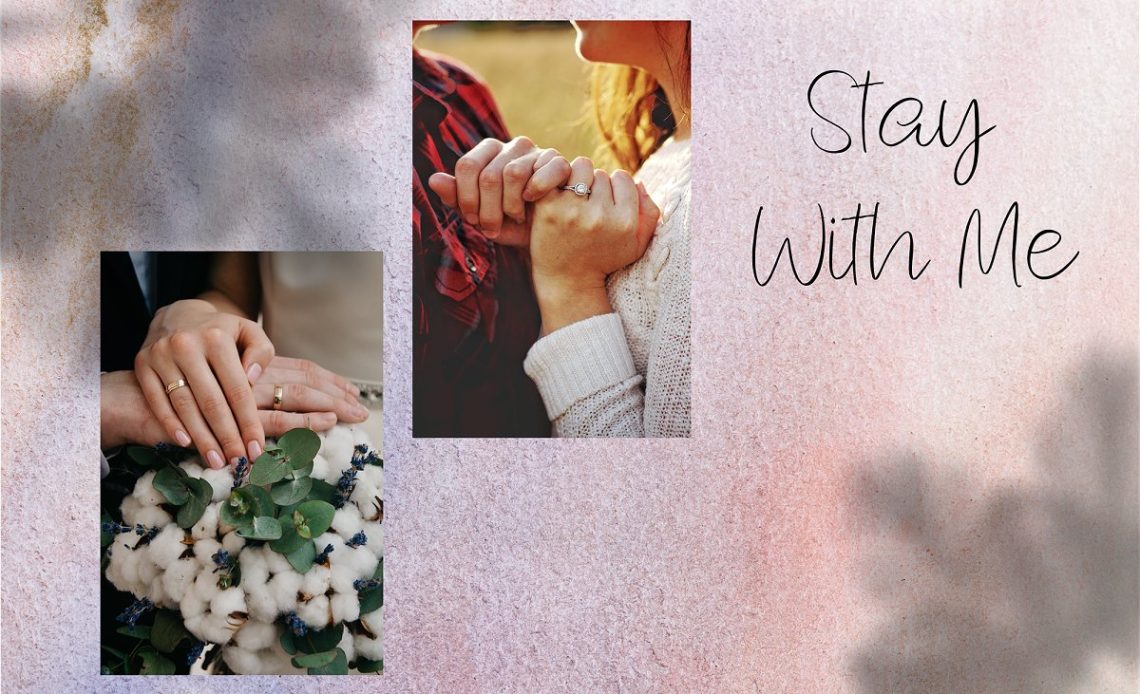
Looking for the perfect font for your script writing? Look no further than Blodeyn Handwriting Font! Created by the talented Randi Ilhamsyah, this stunning script font is designed to elevate your typography to new heights.
Blodeyn Handwriting Font is perfect for a wide range of uses, including personal logos, letterheads, branding, magazines, name cards, wedding invitations, and more. Whether you're creating beautiful embroidery, laser cut designs, gold foil accents, or traditional printing on t-shirts, Blodeyn Handwriting Font is the perfect choice.
Using this font is incredibly easy – simply write your text or logo and watch as the magic unfolds. With its beautiful curves and flowing lines, Blodeyn Handwriting Font is sure to captivate your audience and leave a lasting impression.